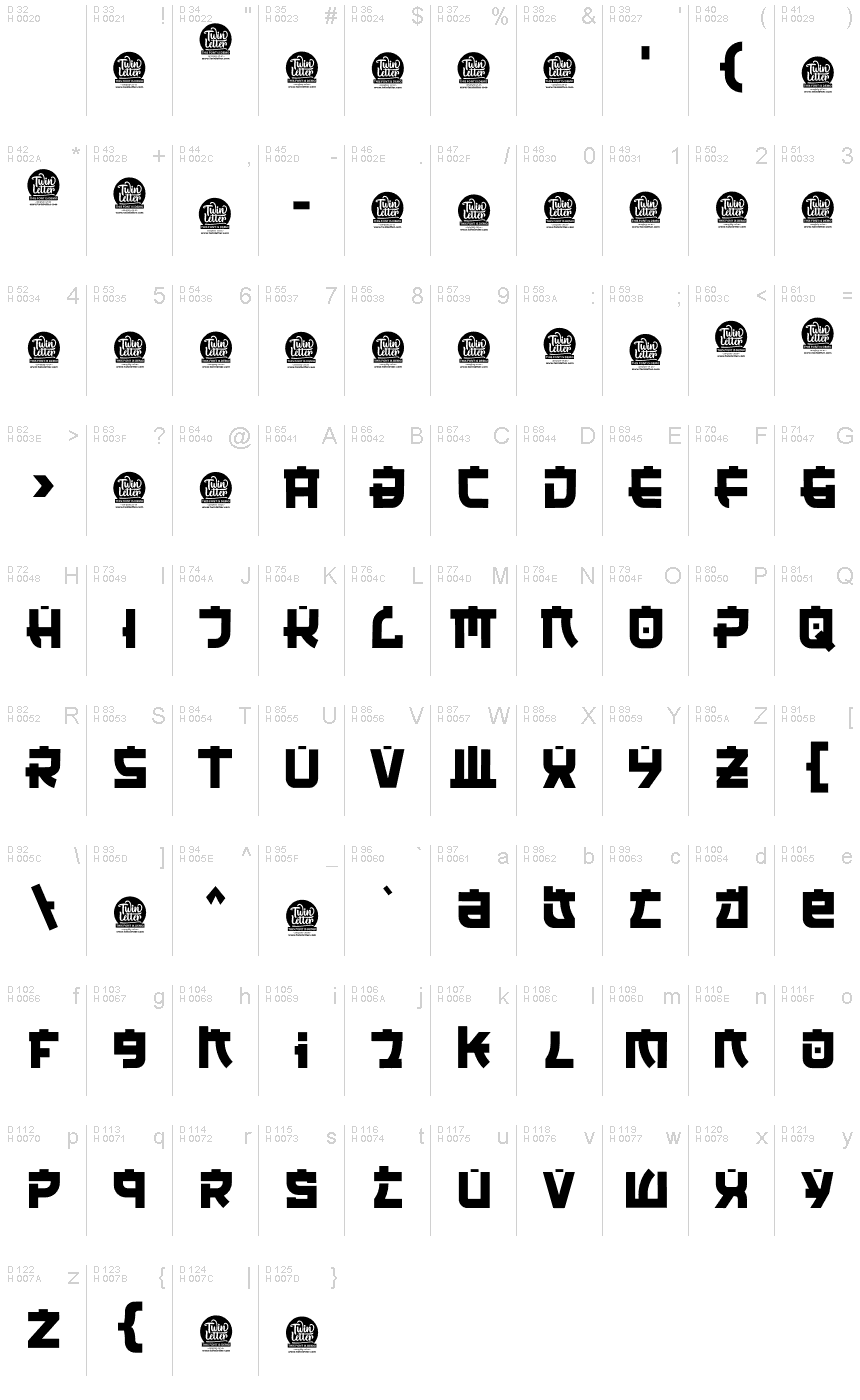
KAWARA Personal Use
KAWARA is a bold foreign font designed by Rozi with a Japanese-style aesthetic. Perfect for digital ads, logos, or video titles that require an eye-catching flair.